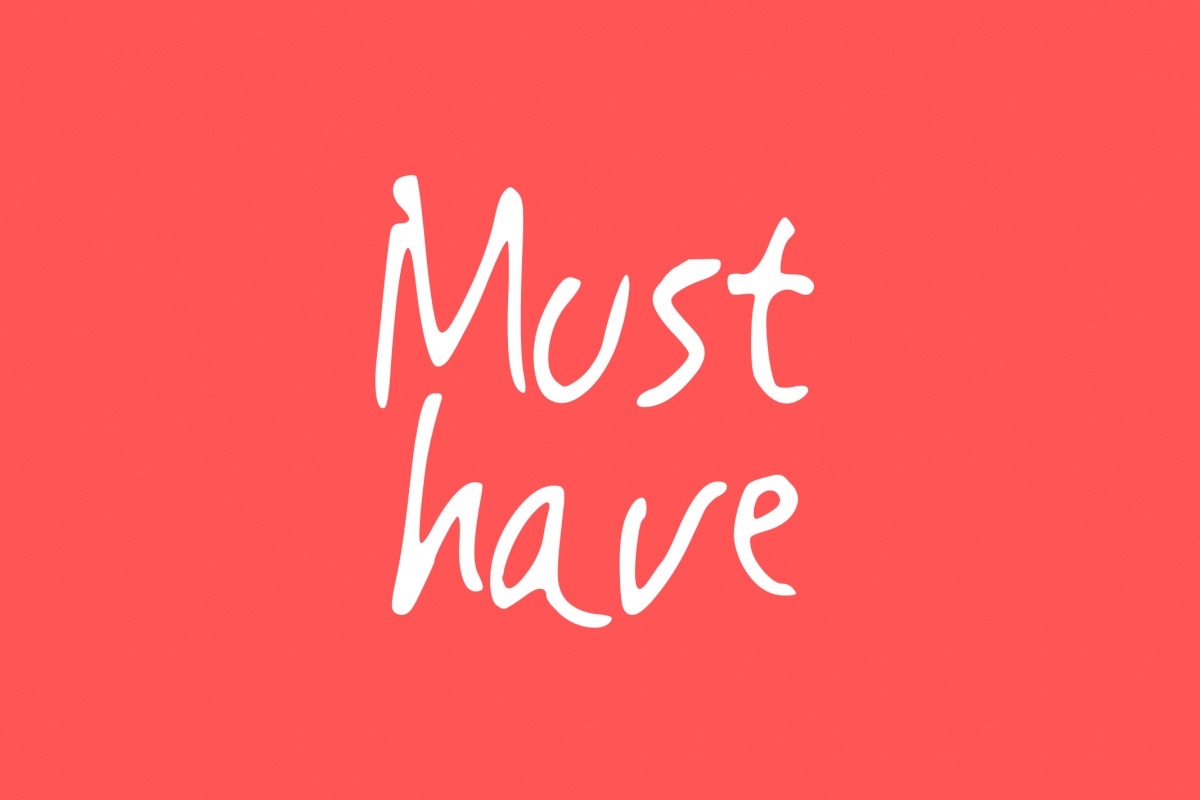
Must Have | Handwritting Font
Must Have | Hanwritting Font
Introducing Must Have Typeface is handwritting font. Houster script is an elegant, modern calligraphy font, designed to give an imperfect hand-sketched look at your work. It is suitable for a variety of applications such as stationery design, invitations, logos, labels, posters, merchandise products, etc.